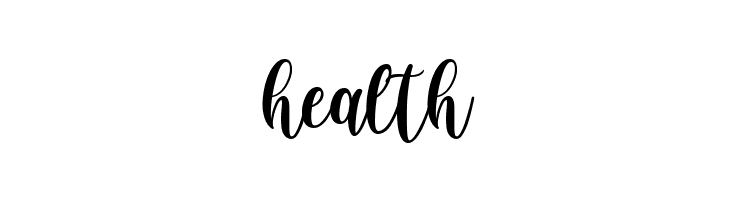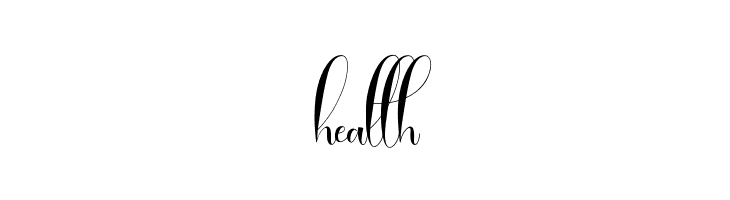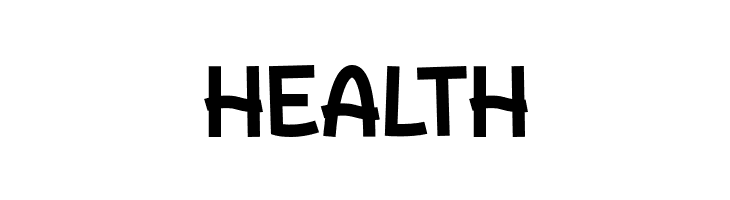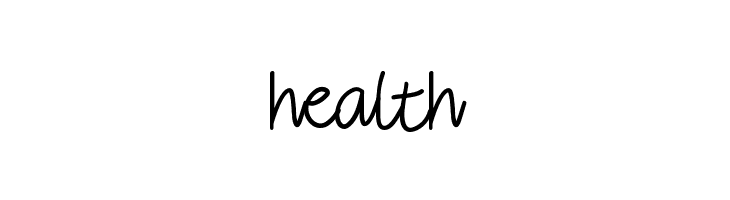
A bold, geometric font with a digital, pixelated style and dynamic horizontal lines.
A bold, geometric font with a three-dimensional effect, perfect for impactful designs.
A bold, geometric font with a three-dimensional inline style.
A bold, geometric font with an inline shadow effect, perfect for impactful designs.
A bold, outlined geometric font with a retro-modern aesthetic.
Bold, geometric font with a three-dimensional shadow effect.
A bold, geometric font with a pixelated, retro video game aesthetic.
A bold, geometric font with sharp angles and consistent stroke widths.
A bold, shadowed font with a geometric, vintage style.
A bold, geometric font with an industrial and futuristic style.
An elegant script font with flowing, cursive lines and refined flourishes.
Elegant decorative script font.
Elegant cursive script with a handwritten feel.
A playful, rounded handwritten font with smooth curves and a friendly appearance.
A bold, angular blackletter font with dramatic flourishes.
A dynamic and flowing script font with elegant, cursive letterforms.
A bold, rounded sans-serif font with a modern and approachable style.
A classic serif font with high contrast and elegant, thin strokes.
A playful, bold font with a hand-drawn, dynamic style.
A bold, playful font with dynamic angles and comic book style.
A modern, bold sans-serif font with uniform stroke width and clear characters.
A bold, geometric font with a futuristic and dynamic style.
A modern, geometric font with a bold and sleek design.
A playful, handwritten font with flowing, cursive letters and a whimsical style.
A playful, handwritten font with floral embellishments and bold strokes.
A bold, edgy font with sharp, angular serifs and a distressed texture.
A bold, geometric font with strong, angular lines and a modern aesthetic.
A bold, geometric font with strong, angular lines and a modern industrial look.
Playful handwritten font with rounded edges.
A bold, playful, hand-drawn font with a whimsical style.
A playful, elegant script font with a handwritten touch.
A playful and elegant handwritten script font with fluid strokes.
Elegant and modern handwritten script.